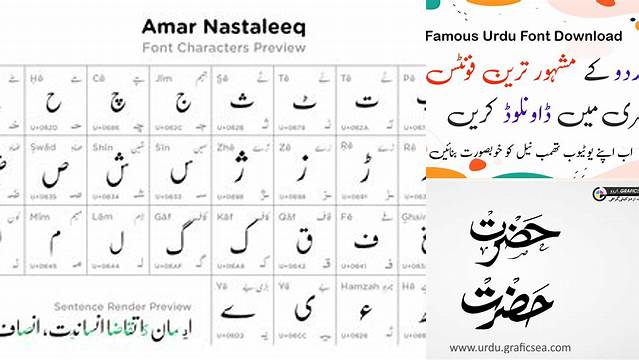
Download Free Urdu Signature Fonts: Your Ultimate Guide
Hey guys! Are you on the hunt for some stunning Urdu signature fonts? You've landed in the right place! In this comprehensive guide, we'll dive deep into the world of Urdu signature fonts, exploring where to find them, how to use them, and everything in between. We know how crucial a unique signature is, especially in a world that’s becoming more digital, and the right font can make all the difference. So, let’s get started and discover the best options for an Urdu signature fonts free download.
Why Choose Urdu Signature Fonts?
Urdu signature fonts add a personal and elegant touch to your documents, designs, and digital communications. They bring a certain flair and sophistication that standard fonts often lack. Whether you're crafting a wedding invitation, designing a logo, or simply adding a personal touch to your emails, an Urdu signature font can elevate your work. The beauty of the Urdu script, with its flowing lines and intricate curves, makes it a fantastic choice for signatures. You can use Urdu signature fonts for various purposes, such as creating unique logos, designing eye-catching invitations, adding a personal touch to your digital communications, and making your documents stand out. Choosing the right font can significantly impact how your message is perceived. An elegant script can convey sophistication and professionalism, while a more playful font might be perfect for creative projects. When looking for an Urdu signature fonts free download, it’s essential to consider the project's context and the message you want to send.
1. Understanding Urdu Calligraphy
Before diving into specific fonts, it's helpful to understand the basics of Urdu calligraphy. This art form is known for its elegant strokes and fluid lines, and many signature fonts draw inspiration from it. Understanding the nuances of Urdu calligraphy can help you appreciate the craftsmanship behind these fonts and make a more informed choice for your project. Urdu calligraphy has a rich history, with various styles and forms developed over centuries. Each style has its unique characteristics, and some are better suited for signatures than others. For instance, Nastaʿlīq is a widely used style known for its flowing, cursive script, making it an excellent choice for elegant signatures. Another popular style is Thuluth, which is often used in religious texts and has a more formal and decorative appearance. Familiarizing yourself with these different styles can significantly enhance your ability to select the perfect Urdu signature fonts free download for your needs.
2. Key Features of Urdu Signature Fonts
What makes a great Urdu signature font? Several key features contribute to its overall appeal and readability. The font should be legible, even at smaller sizes, and it should reflect the personality and style you want to convey. Look for fonts with a good balance of elegance and simplicity, and consider how the font will look in different contexts. One crucial aspect is the stroke thickness. A font with varying stroke thicknesses can add depth and character to your signature, making it visually appealing. However, too much variation can make the font difficult to read. Spacing between letters and words is also important. A well-spaced font will be more legible and easier on the eyes. Furthermore, the overall design of the font should align with the intended use. A formal signature might benefit from a more traditional script, while a creative project might call for a more modern and stylized Urdu signature fonts free download.
5. Premium Urdu Font Options
If you're willing to invest a bit, premium Urdu font options can offer even more variety and quality. Paid fonts often come with additional features, such as more extensive character sets, multiple weights and styles, and dedicated support from the font designer. Premium fonts are typically designed with greater attention to detail and undergo rigorous testing to ensure they perform well in various applications. One popular platform for premium fonts is MyFonts, which has a vast collection of Urdu fonts from various foundries and designers. MyFonts offers detailed previews and test drives, allowing you to see how the font will look in your project before making a purchase. Another excellent resource is Creative Market, which features fonts and design assets from independent creators. Creative Market often has sales and bundles, making it possible to find high-quality premium fonts at a reasonable price. Investing in a premium font can be a worthwhile decision if you need a specific style or require advanced features. This is especially true for professional projects where quality and consistency are paramount when you are looking for an Urdu signature fonts free download.
6. Understanding Font Licensing
Before you download and use any font, it’s crucial to understand font licensing. Font licenses dictate how you can use a font, whether it’s for personal or commercial projects. Ignoring licensing terms can lead to legal issues, so it’s essential to be informed. Free fonts often come with different types of licenses. Some may be free for personal use only, while others allow commercial use. Open-source fonts typically have the most permissive licenses, allowing you to use, modify, and distribute the font without restrictions. However, it’s always a good idea to double-check the specific terms. Premium fonts come with their own set of licenses, which vary depending on the foundry and the intended use. A standard commercial license usually covers use in print and web projects, but you may need an extended license for certain applications, such as embedding the font in software or using it in broadcast media. Understanding these differences will help you choose the right font for your project and ensure you’re complying with the licensing terms. Always read the fine print when considering an Urdu signature fonts free download.